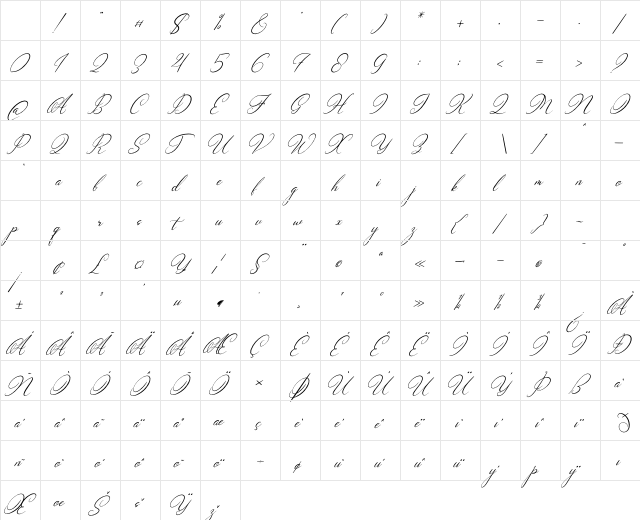
Wenstormy Italic is a composed and adaptable typeface that performs quietly and consistently across a wide range of design contexts. The slanted form adds forward momentum and visual energy.
Pro Tip: Use Wenstormy Italic for emphasis, pull quotes, and subheadings where its slanted energy can add rhythm to the layout.